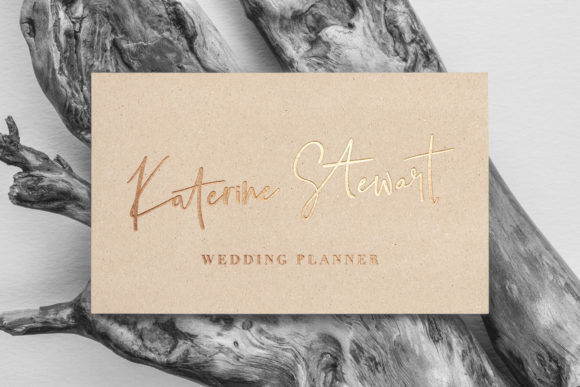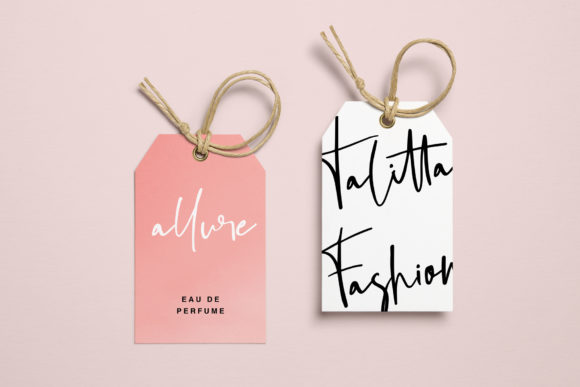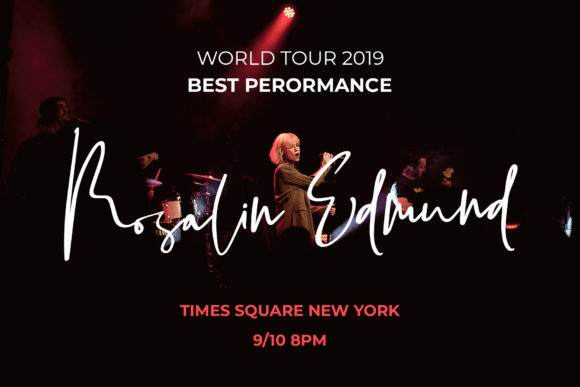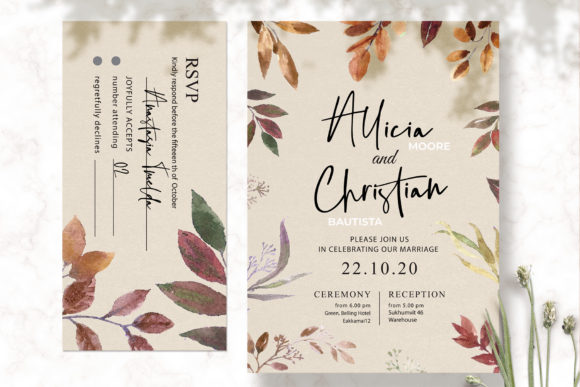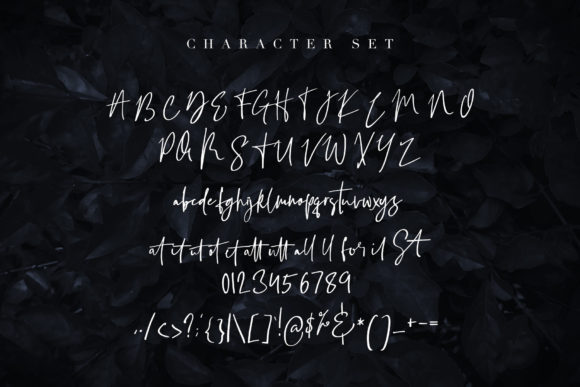
Introduction to Flower for Rosalline Font
Do you remember the moment when a beautiful, handwritten font instantly elevated your creative project from good to great? For many designers, this magic happens when they stumble upon the perfect typography. Today, we’re excited to introduce you to a stunning addition to your design arsenal: the Flower for Rosalline Font.
This expressive script font is a dream come true for those seeking a romantic touch in their crafting projects. With its elegant, flowing lines, Flower for Rosalline Font is sure to add a touch of sophistication to any design. Whether you’re working on a wedding invitation, a card, or a journal, this high-quality font is an invaluable resource that will help you create truly unique and memorable pieces.
Key Features of Flower for Rosalline Font
- High-quality design resource ideal for creative projects, such as invitations, greeting cards, and other decorative items.
- Unique, hand-drawn design featuring a delicate flower motif, perfect for adding a touch of elegance to any project.
Honest Review: Flower for Rosalline Font
I recently stumbled upon the Flower for Rosalline Font while searching for a design resource for a creative project. I was immediately drawn to its elegant and intricate design, which I think would be perfect for a wedding invitation or a floral-themed website.
Overall, I think the Flower for Rosalline Font is a great addition to any designer’s toolkit. Its elegant design and high-quality construction make it a versatile and reliable resource for a wide range of creative projects.
The Flower for Rosalline Font is suitable for a wide range of creative projects, including wedding invitations, business cards, and social media graphics. It’s also perfect for designing custom graphics and illustrations with a high-quality finish.